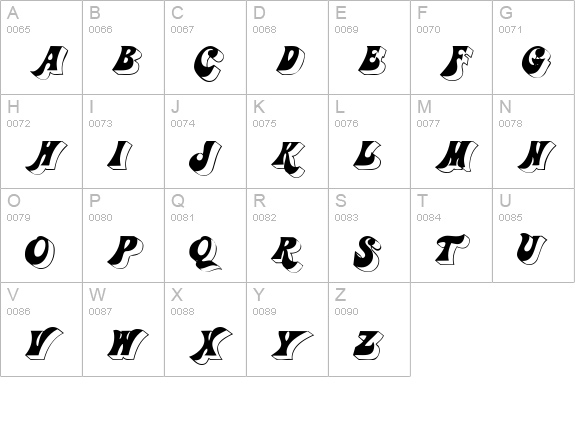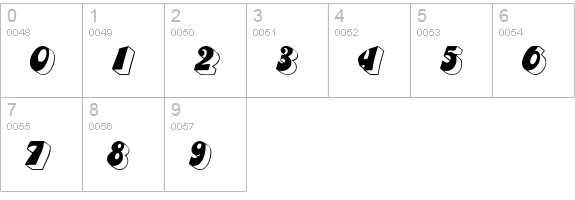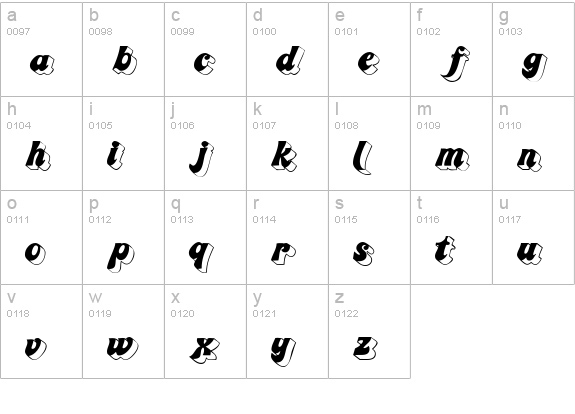
GummyDisplay Italic is a distinctive, italic variant in the GummyDisplay typeface family \xE2\x80\x94 well suited to design and typography projects.
GummyDisplay Italic font is a modern and stylish typeface that exudes elegance and sophistication. Its sleek and sleek design makes it perfect for branding, headlines, and any other creative projects that require a touch of class. The italicized style adds a dynamic flair to your text, making it stand out and capture attention. What sets GummyDisplay Italic font apart is that it is available for free download at FontsMarket.com. This means you can easily access this high-quality font without any cost, making it a valuable addition to your font collection. With its versatility and timeless appeal, GummyDisplay Italic font is sure to elevate your designs and leave a lasting impression on your audience. Download it today and see the difference it can make in your projects!